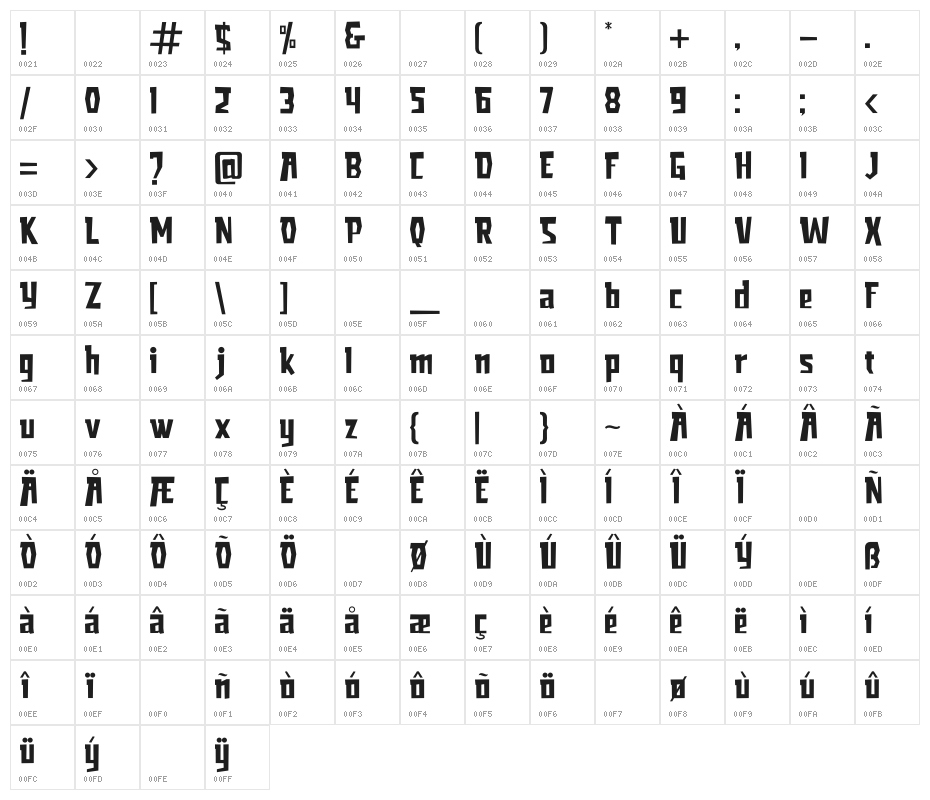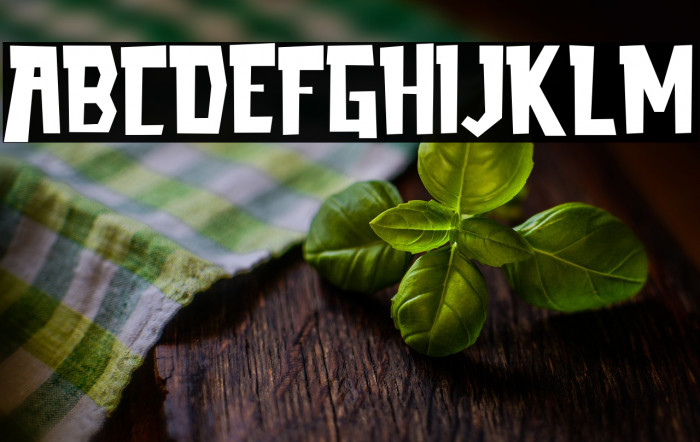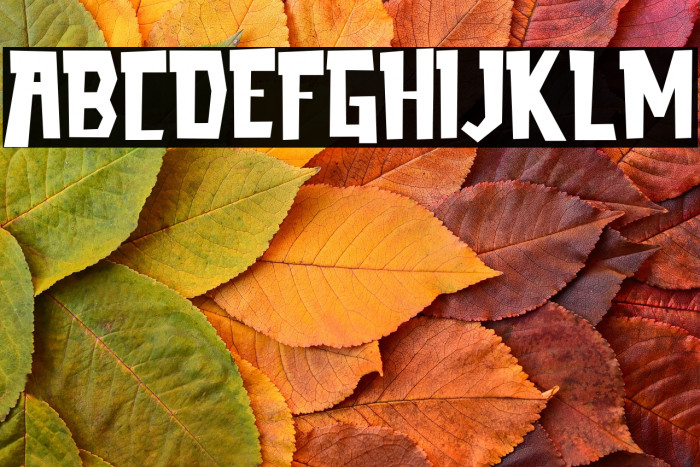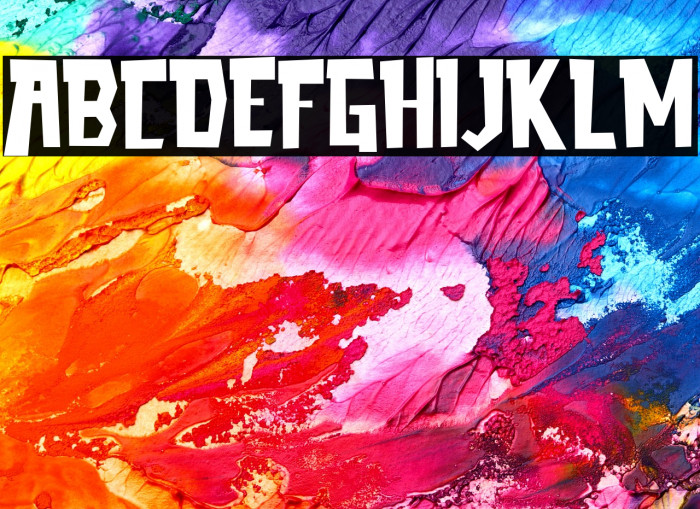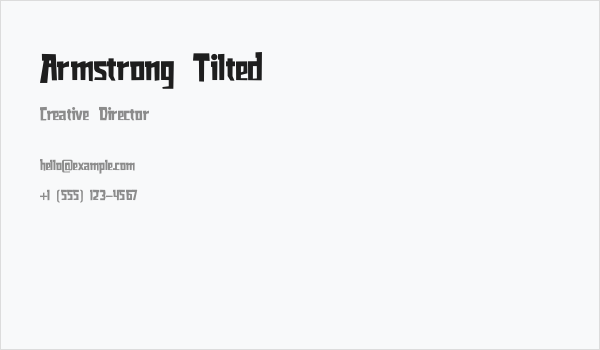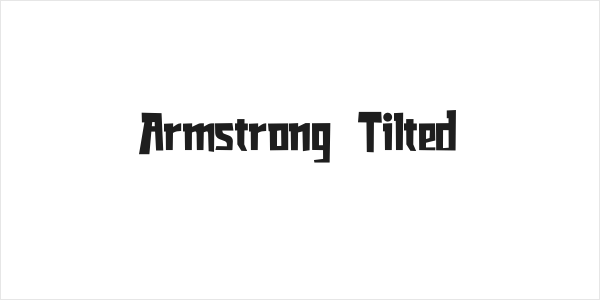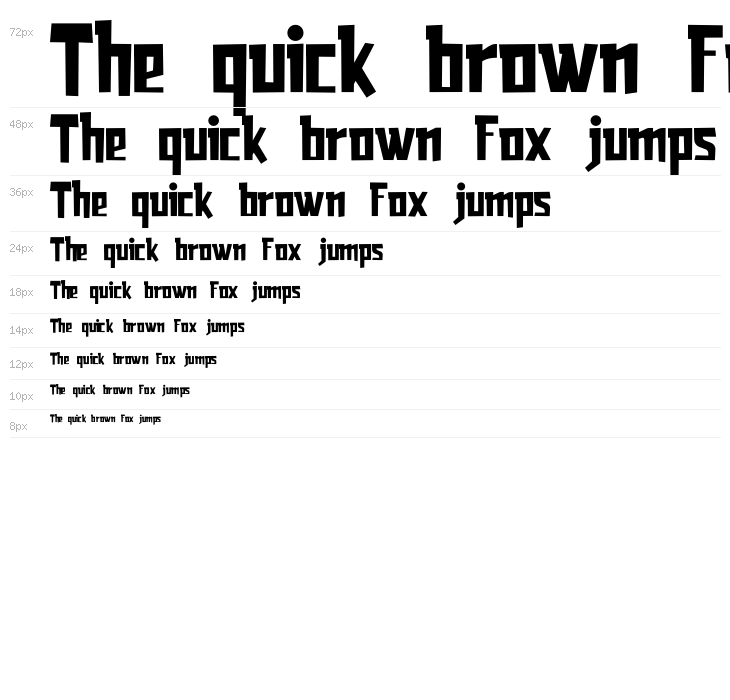
Armstrong Tilted Font
Armstrong Tilted Description
This font features a bold, angular design with a distinct geometric style. The characters are slightly tilted, giving them a dynamic and edgy appearance. The uppercase letters are particularly striking, with sharp angles and a strong presence. The lowercase letters maintain the same angular style, ensuring consistency across the typeface. Numbers and special characters are designed with the same boldness and angularity, making them stand out. This font is ideal for projects that require a modern and impactful look.
| Proposed Projects | Ideal for posters, headlines, branding, and any design that needs a modern and striking appearance. |